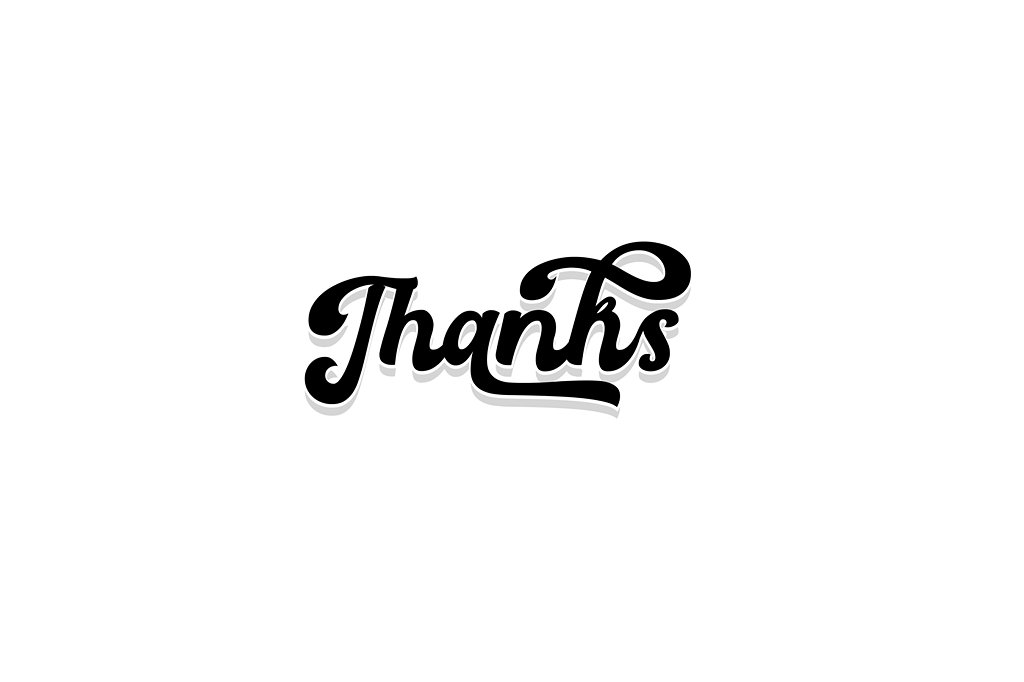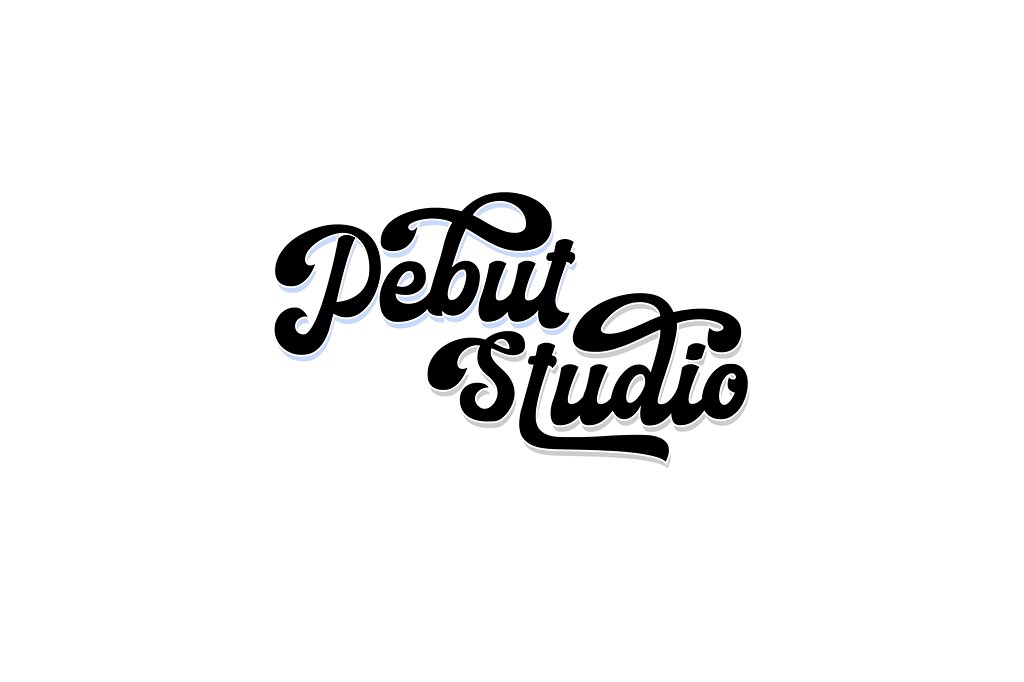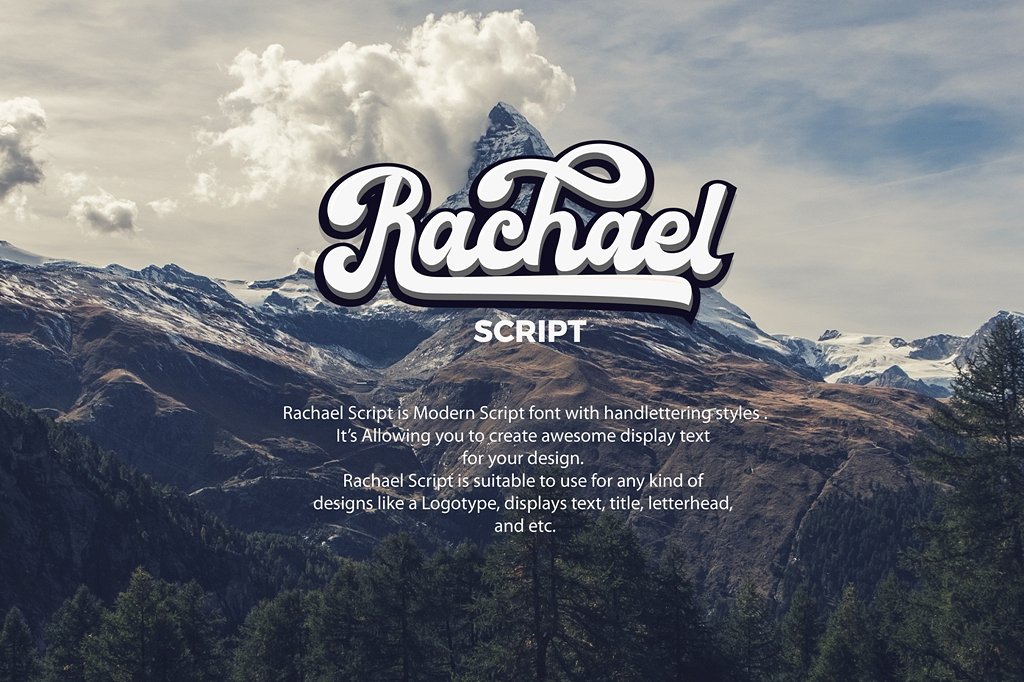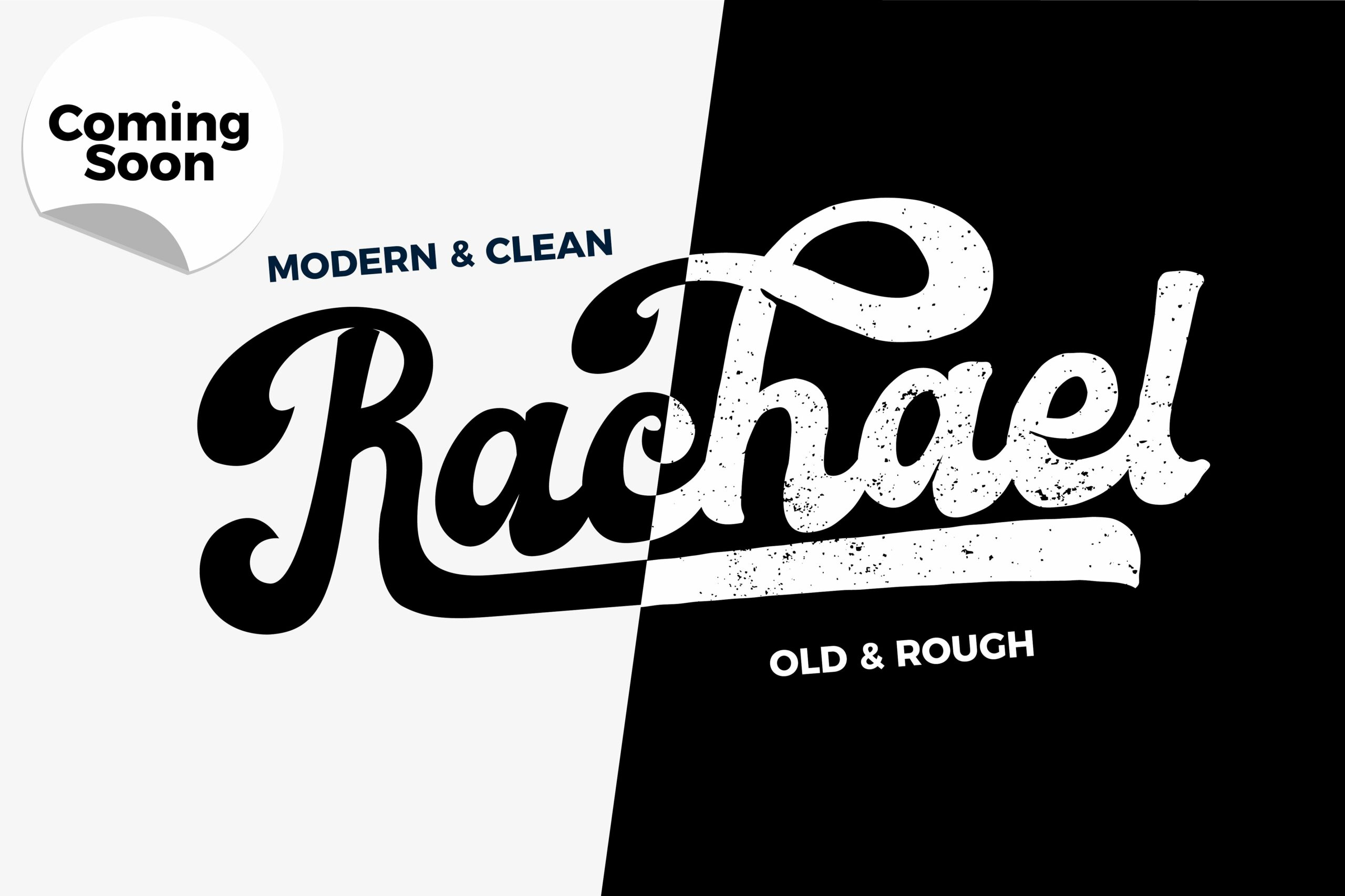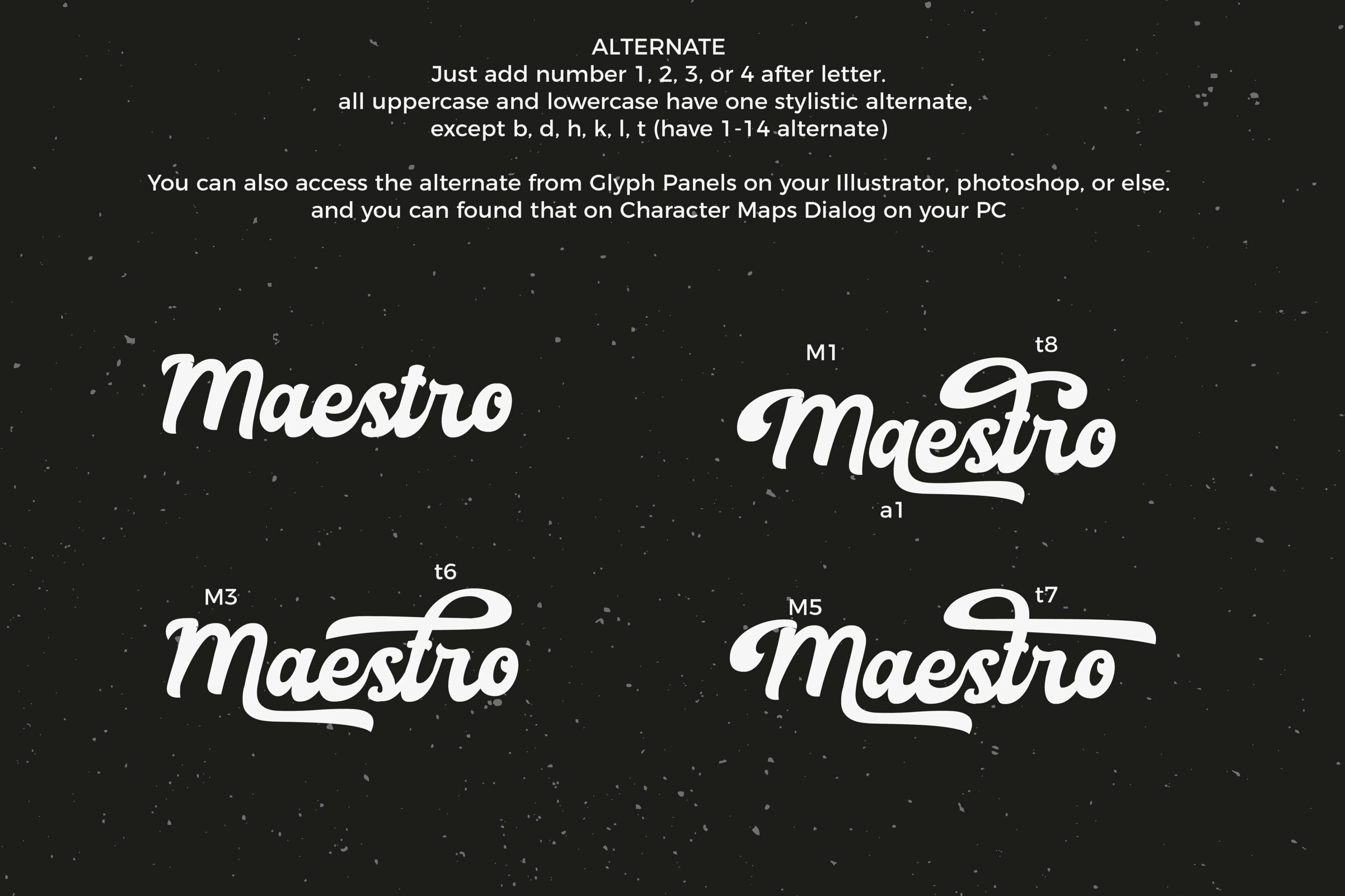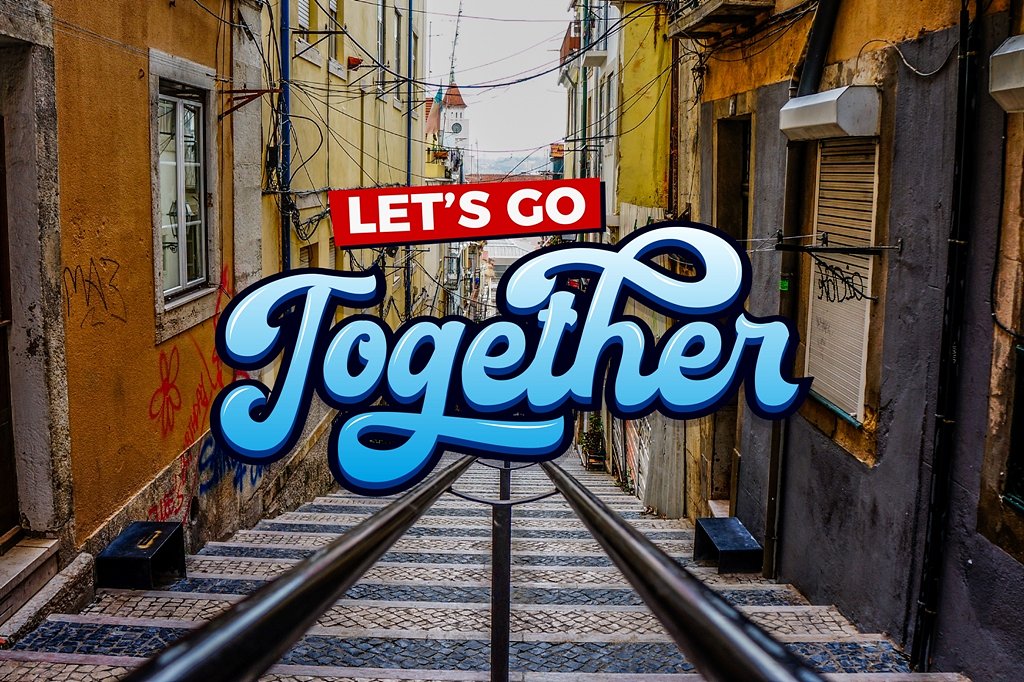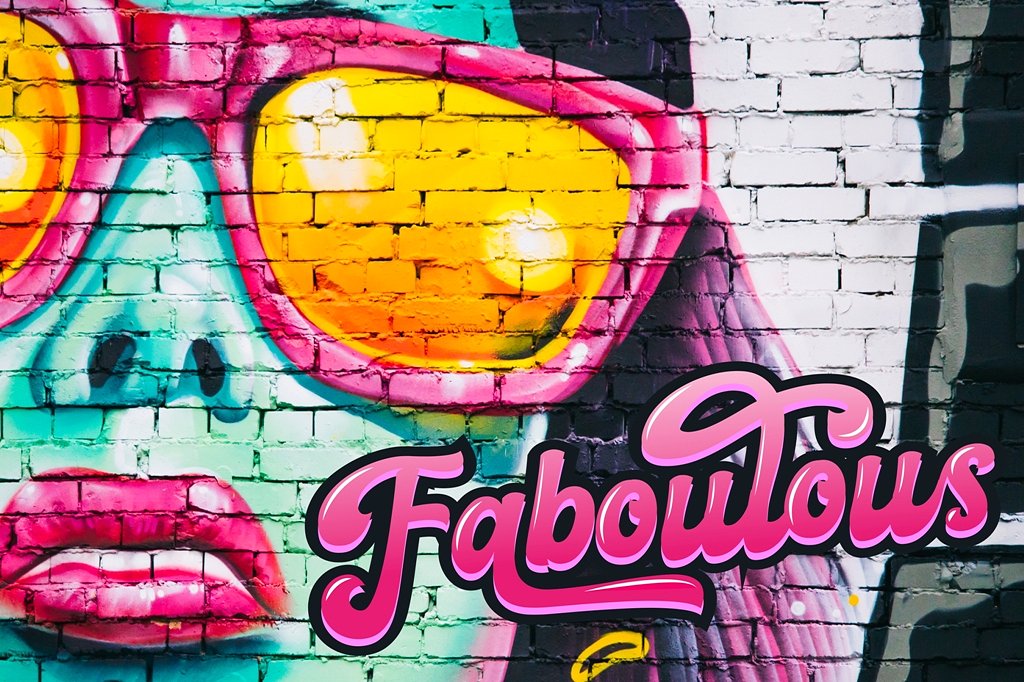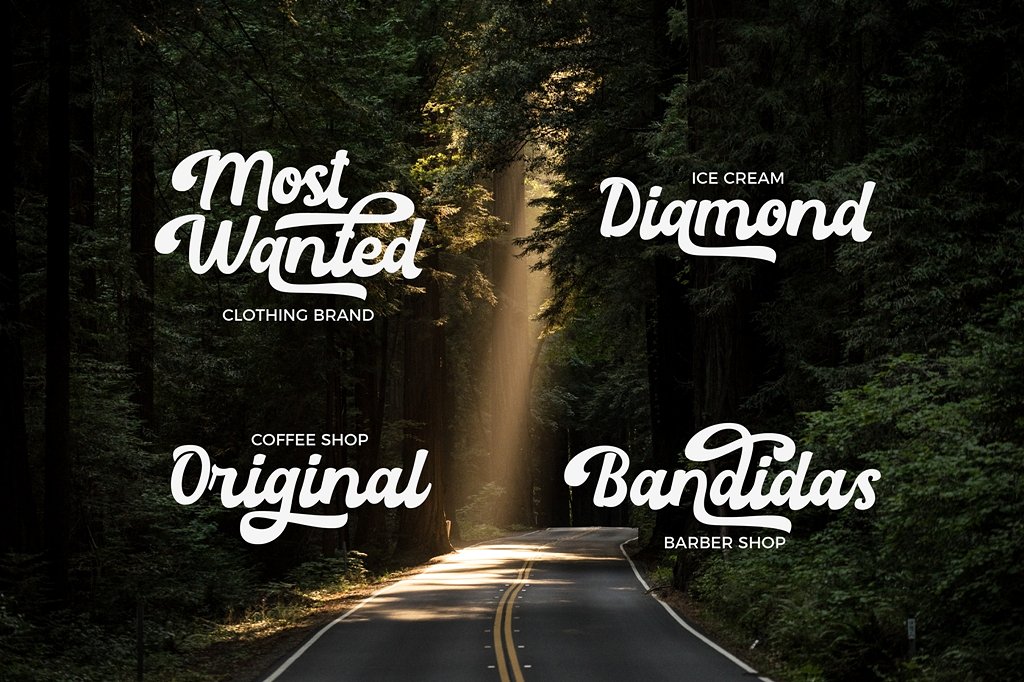
Rachael Font
About Rachael Font
Rachael Script is a modern script font. This expressive, bold font is very suitable for branding, logos, titles and much more.